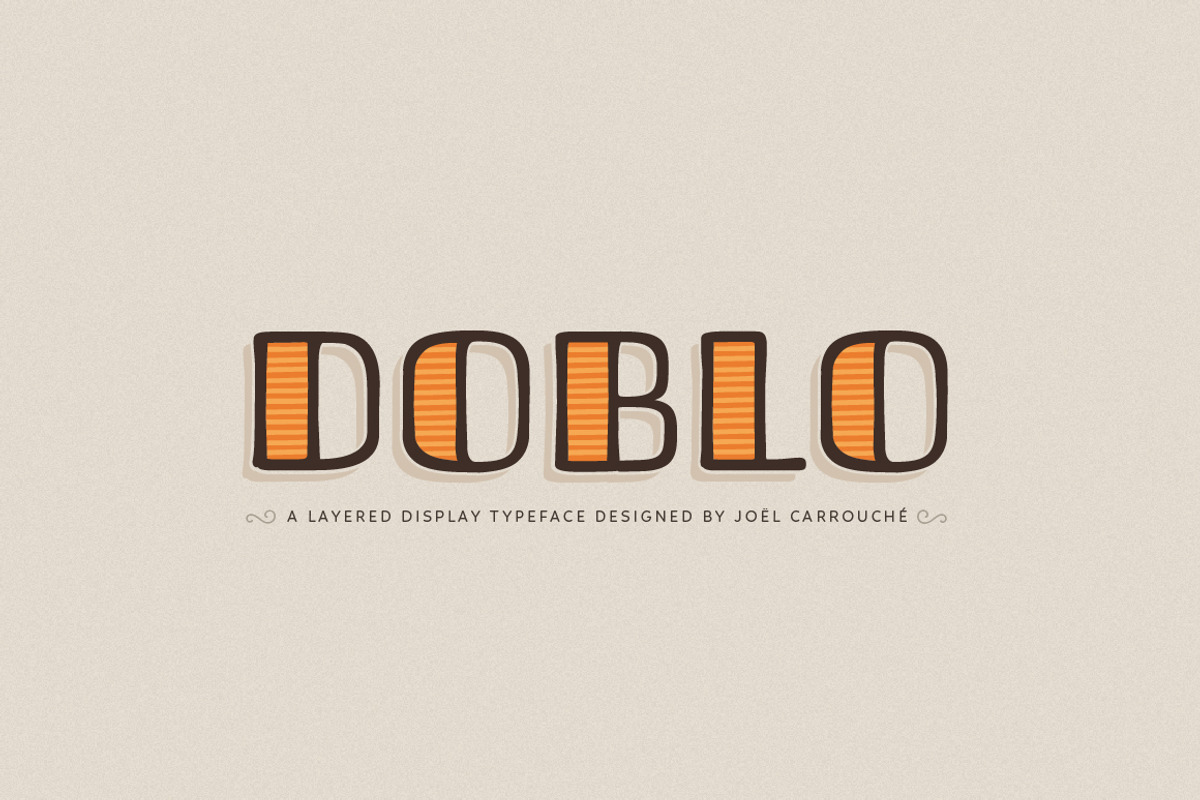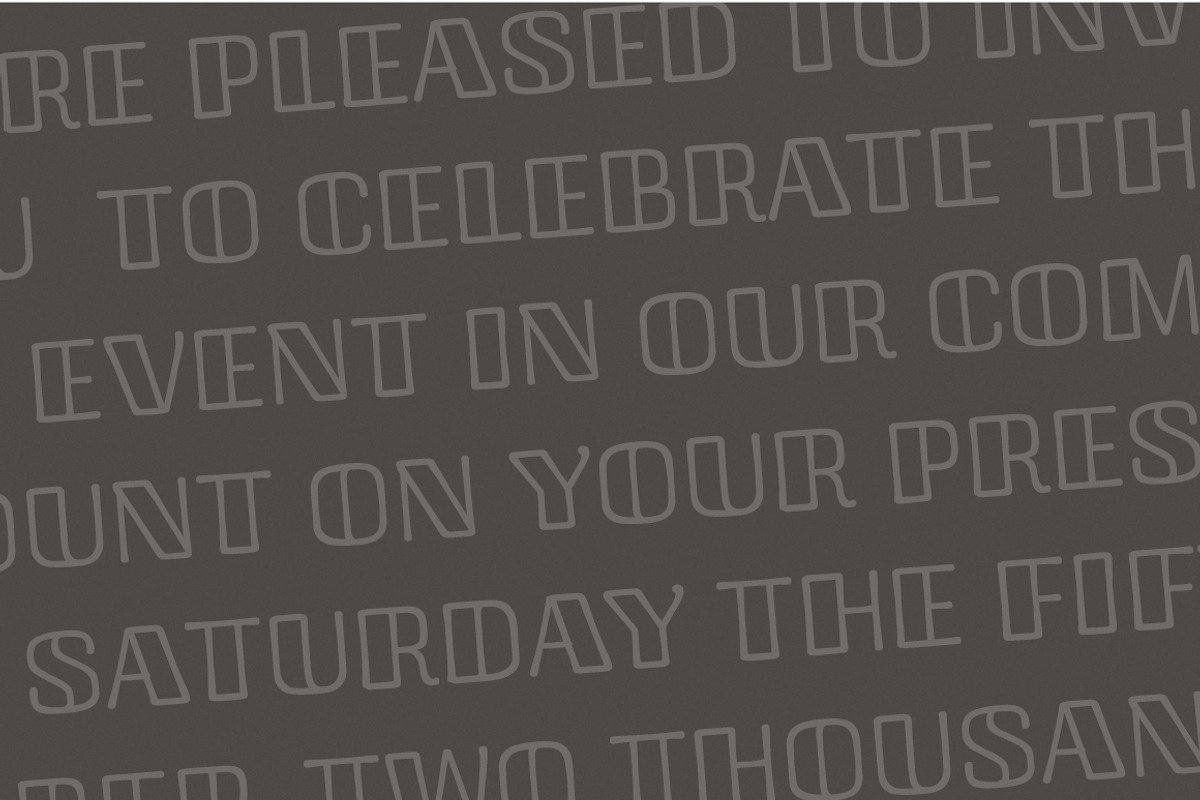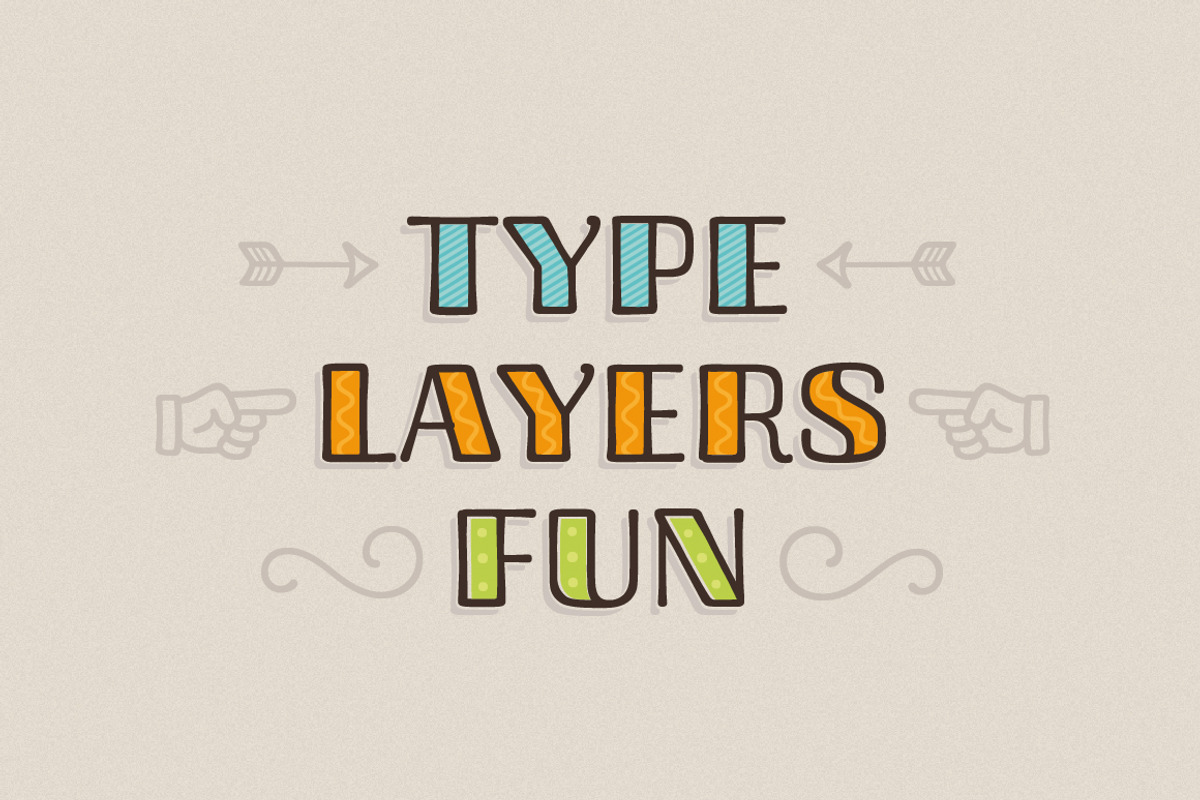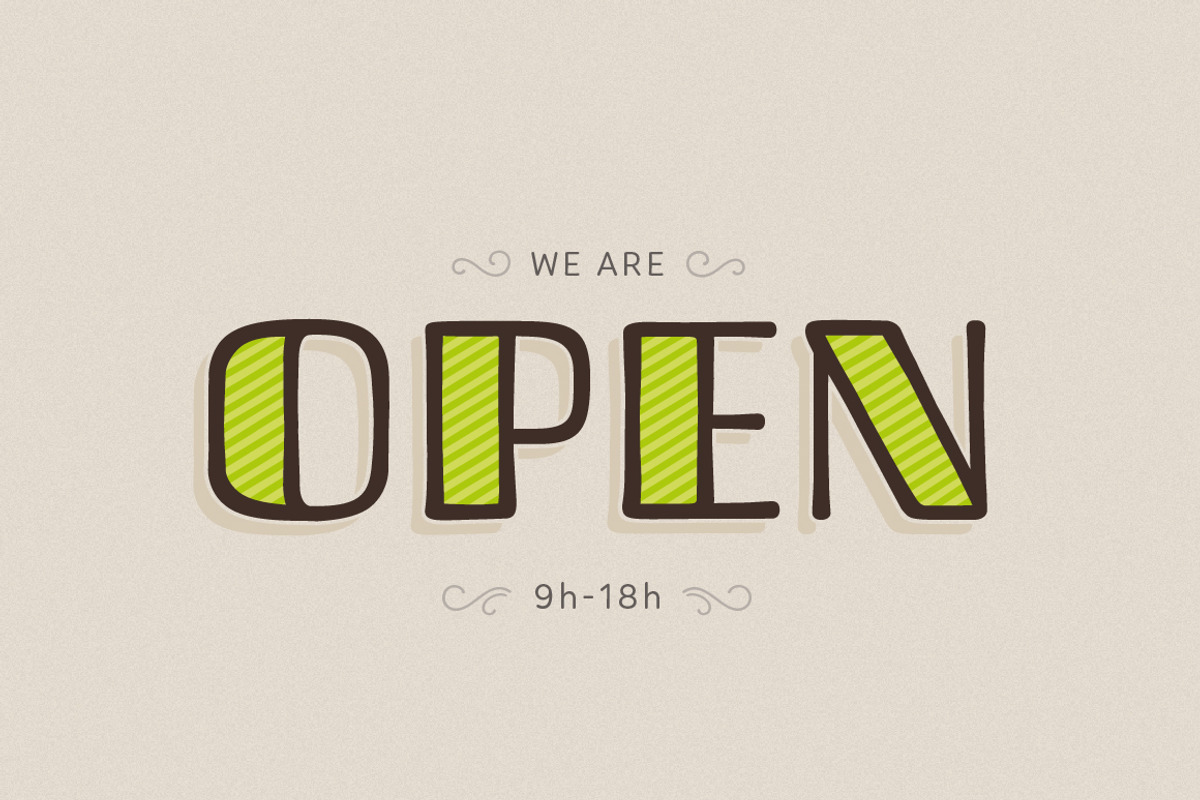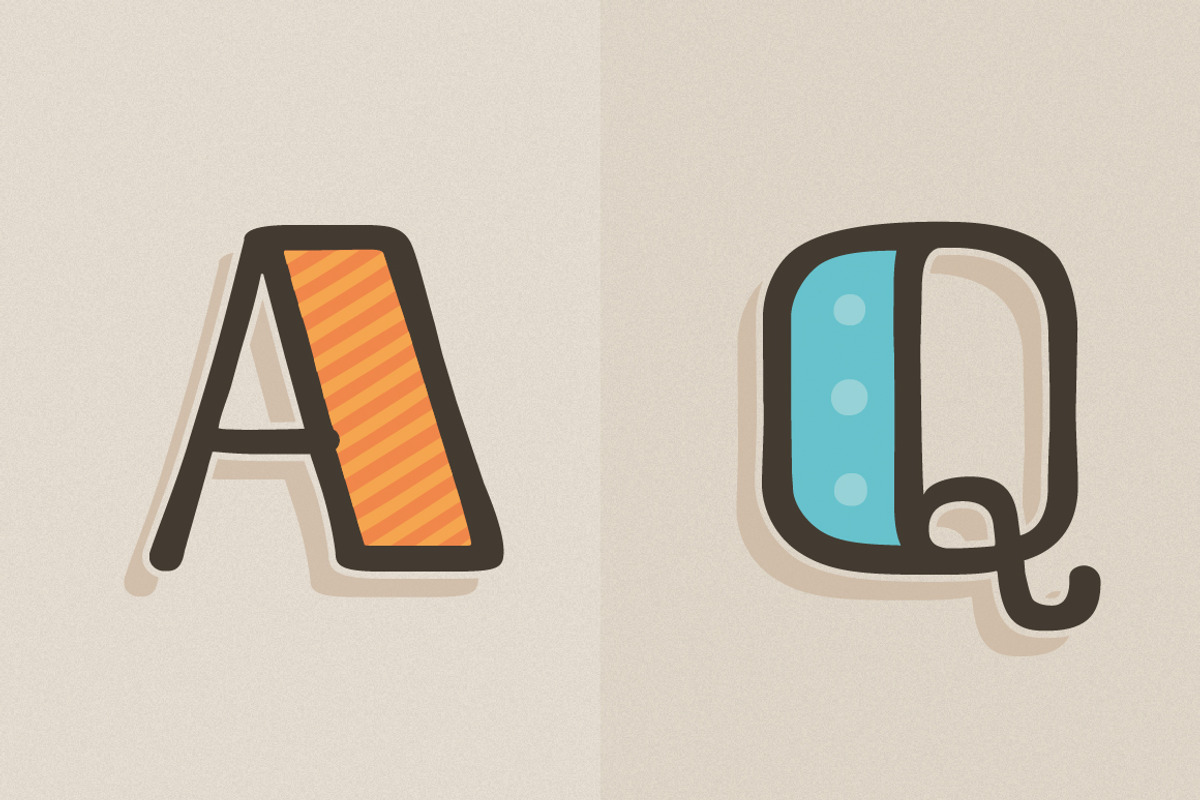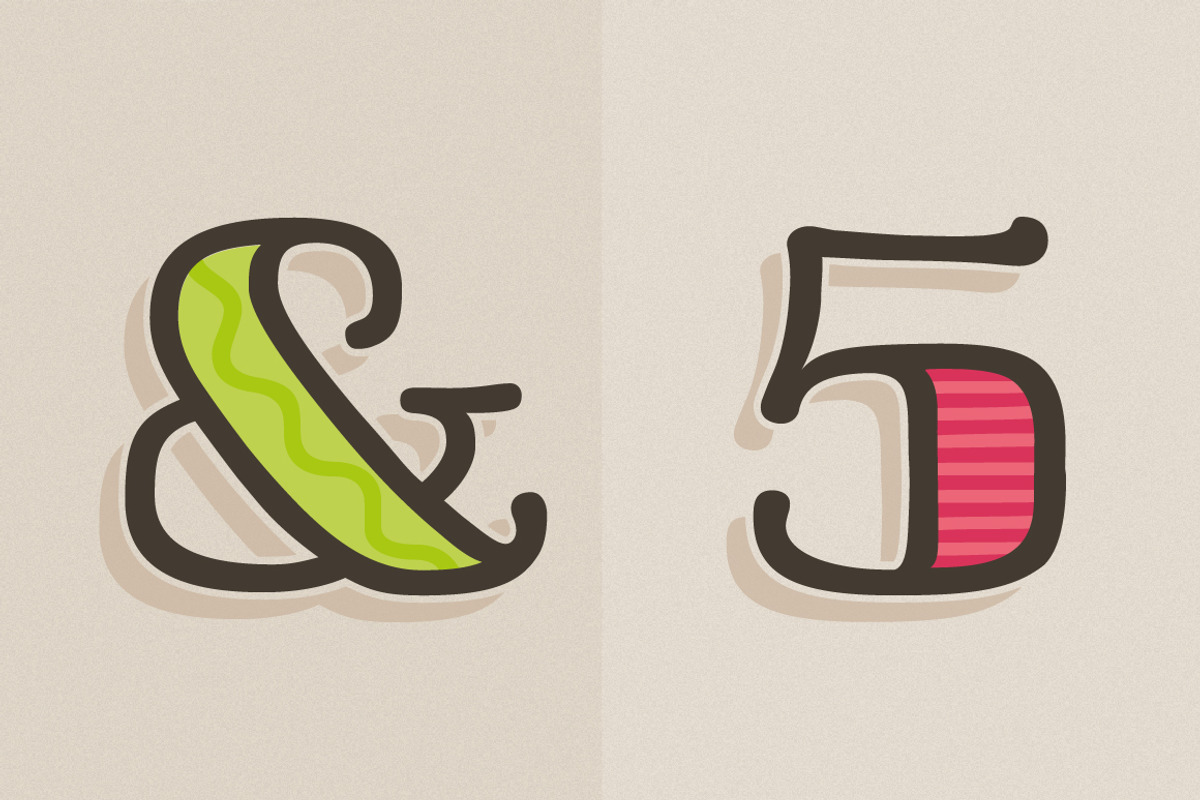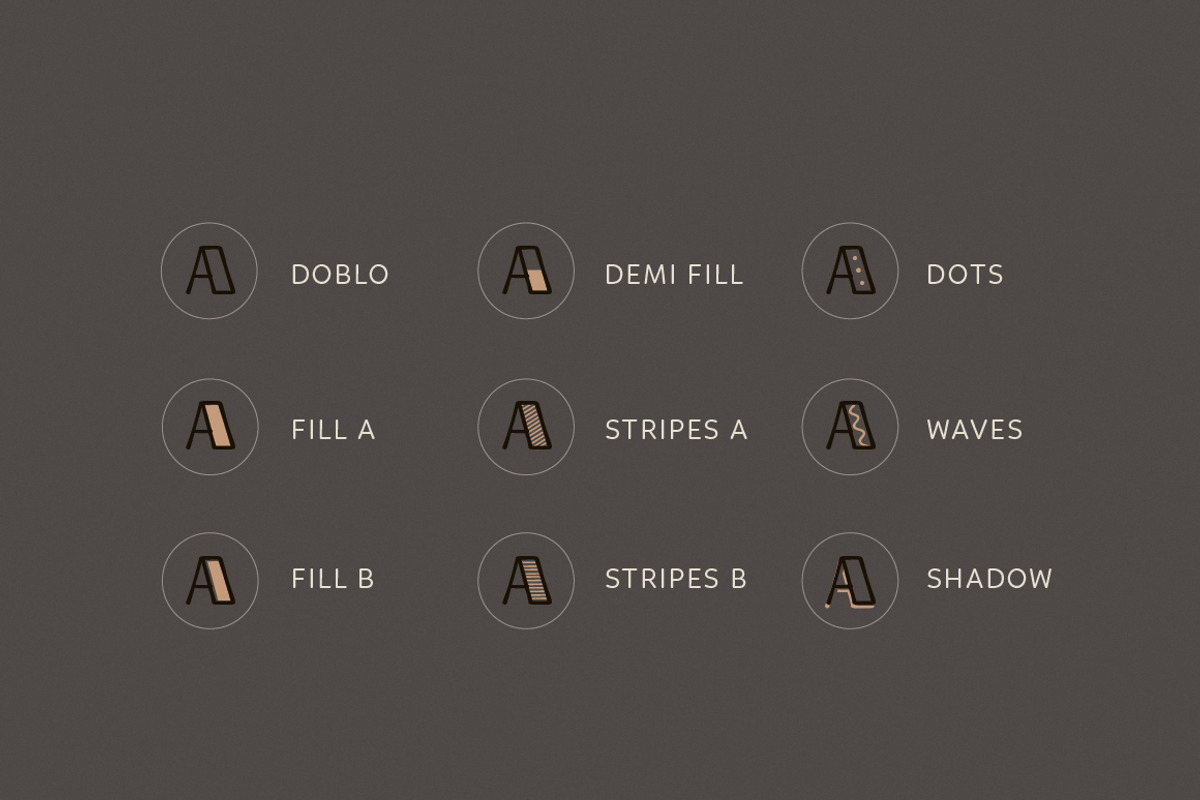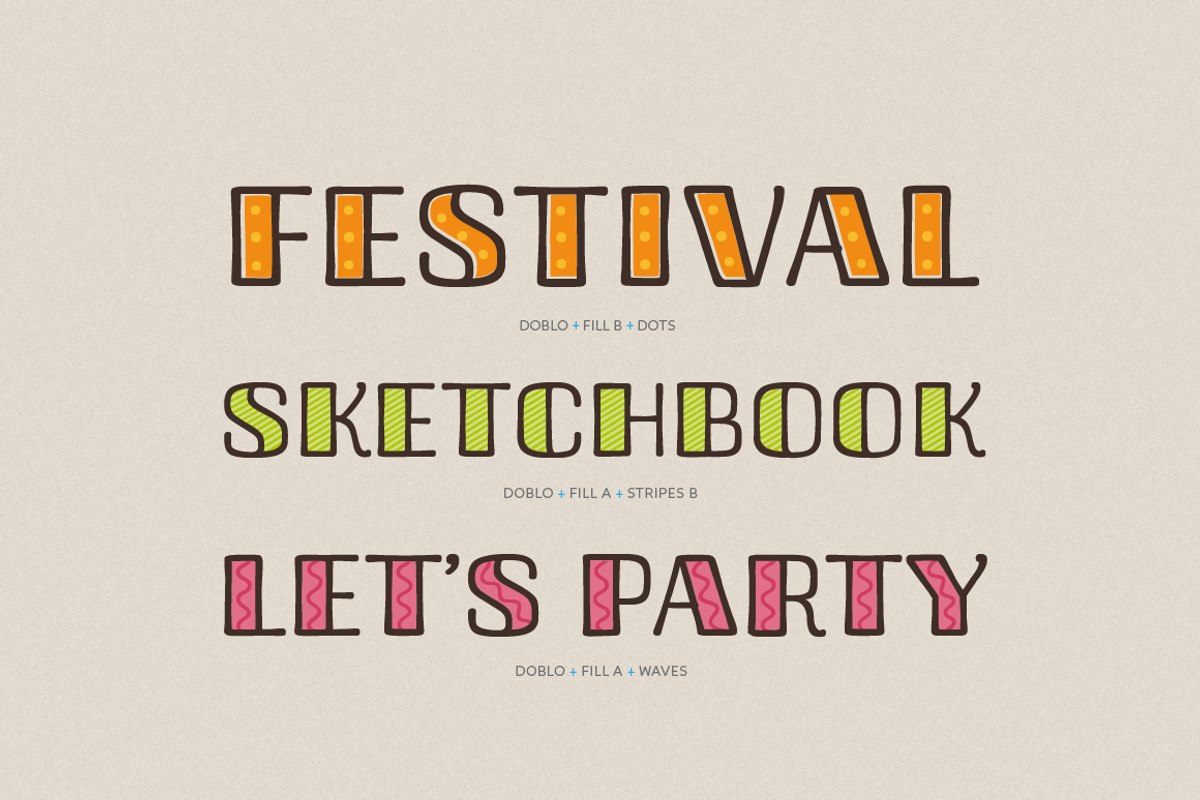
Doblo Typeface
Doblo Typeface by JCFonts is a font selected for branding, posters, packaging, typography.
Why Doblo Typeface is worth a look
Doblo Typeface by JCFonts fits naturally into Branding, posters, packaging, typography.